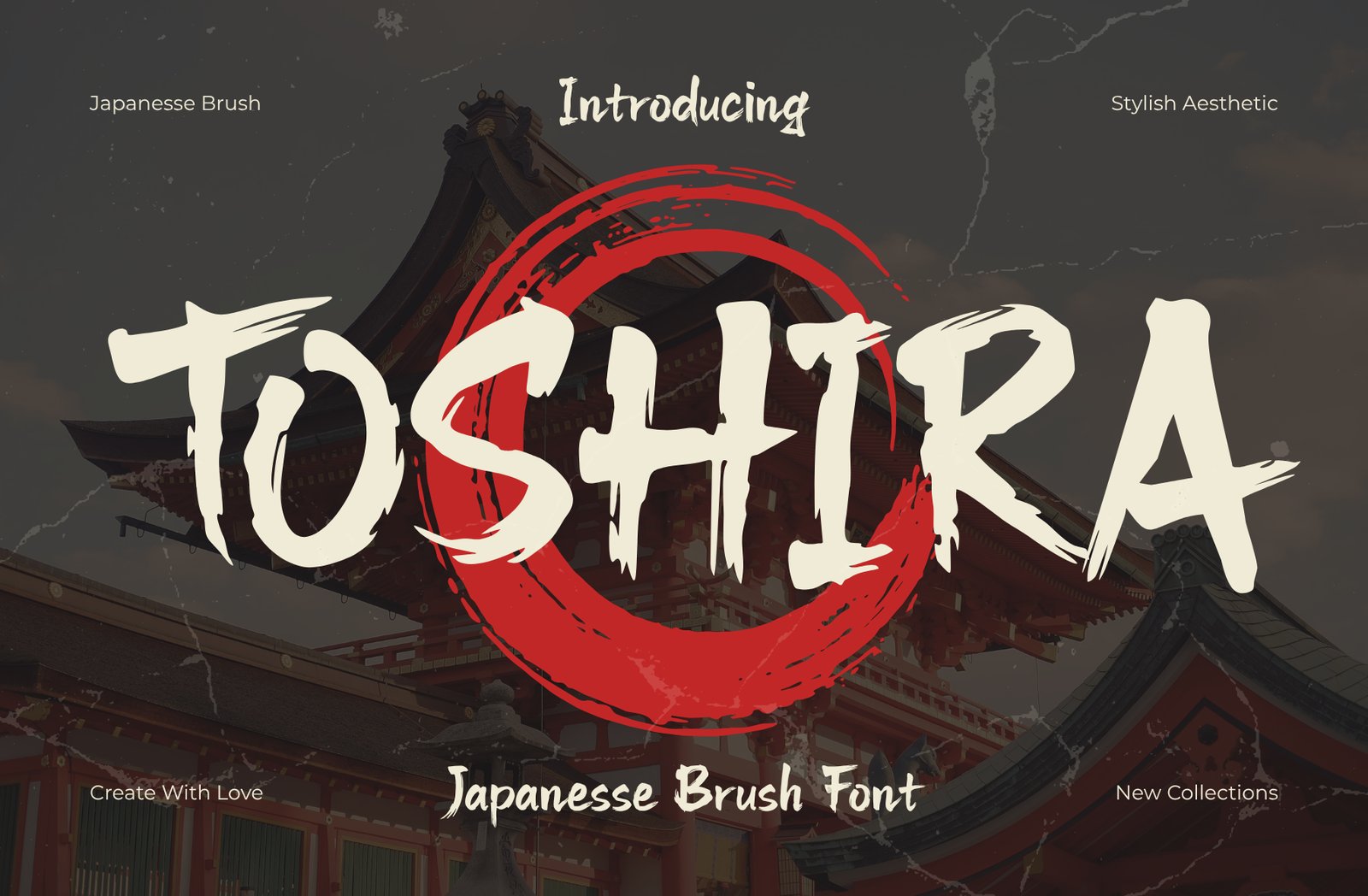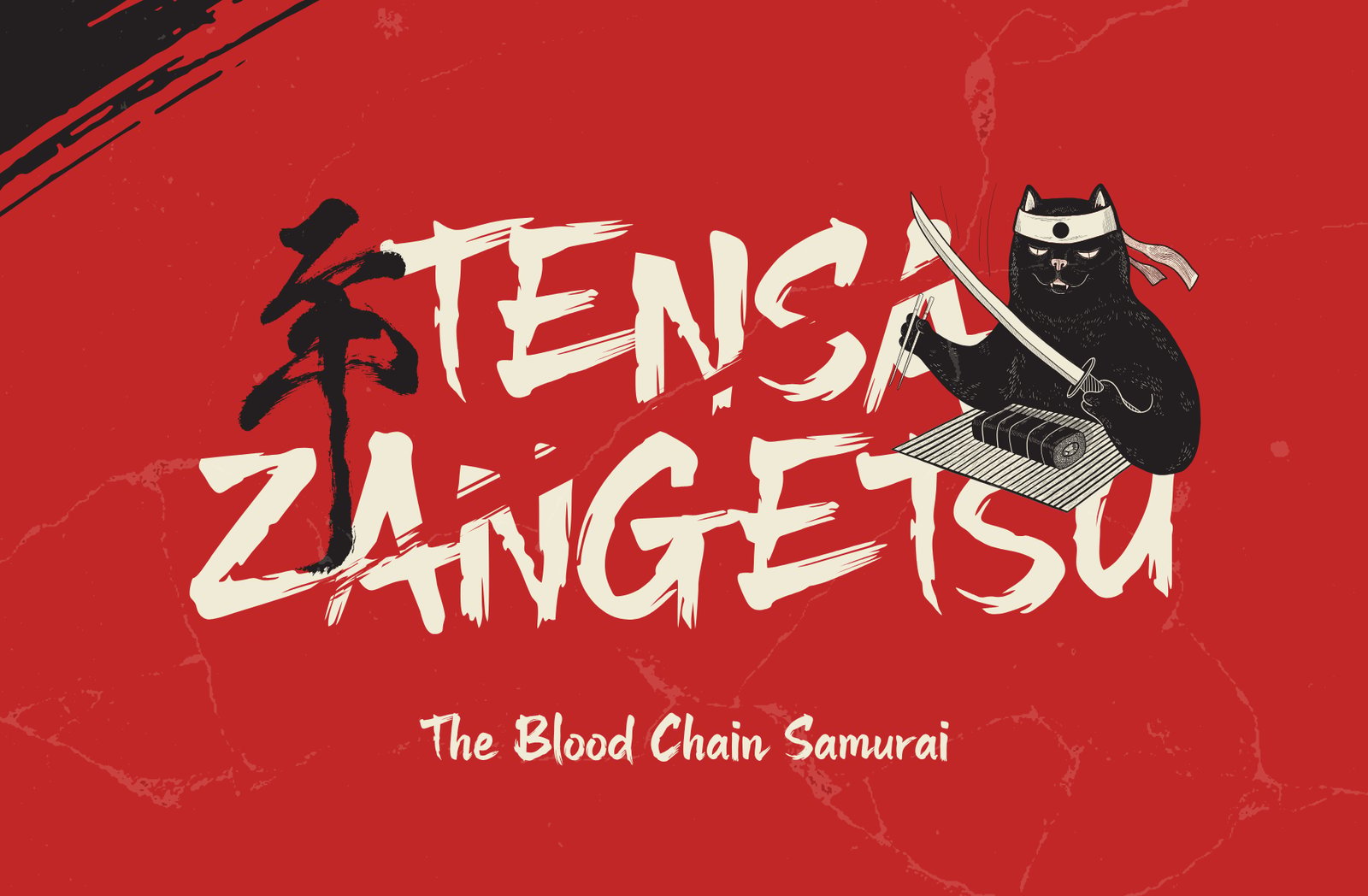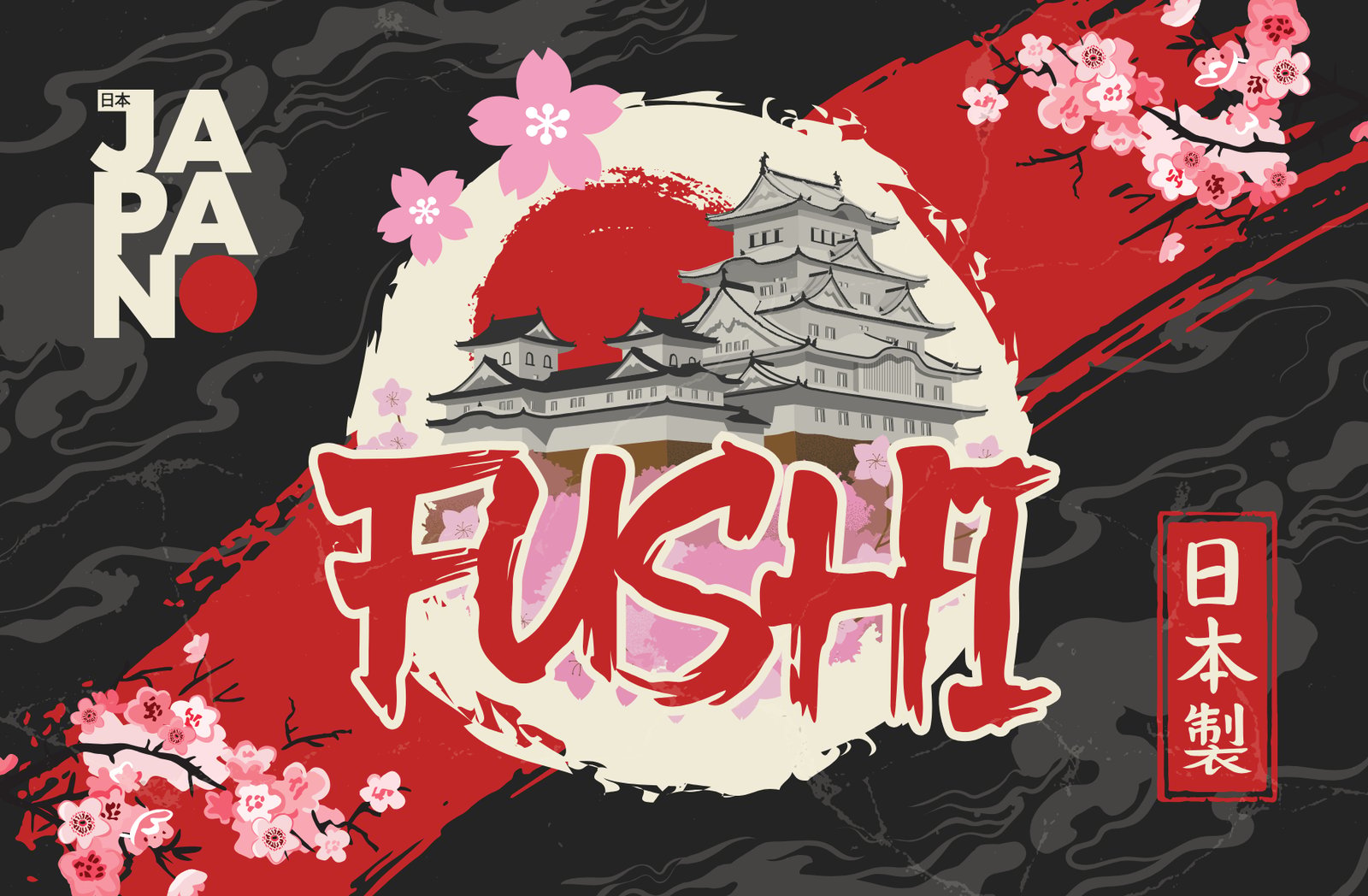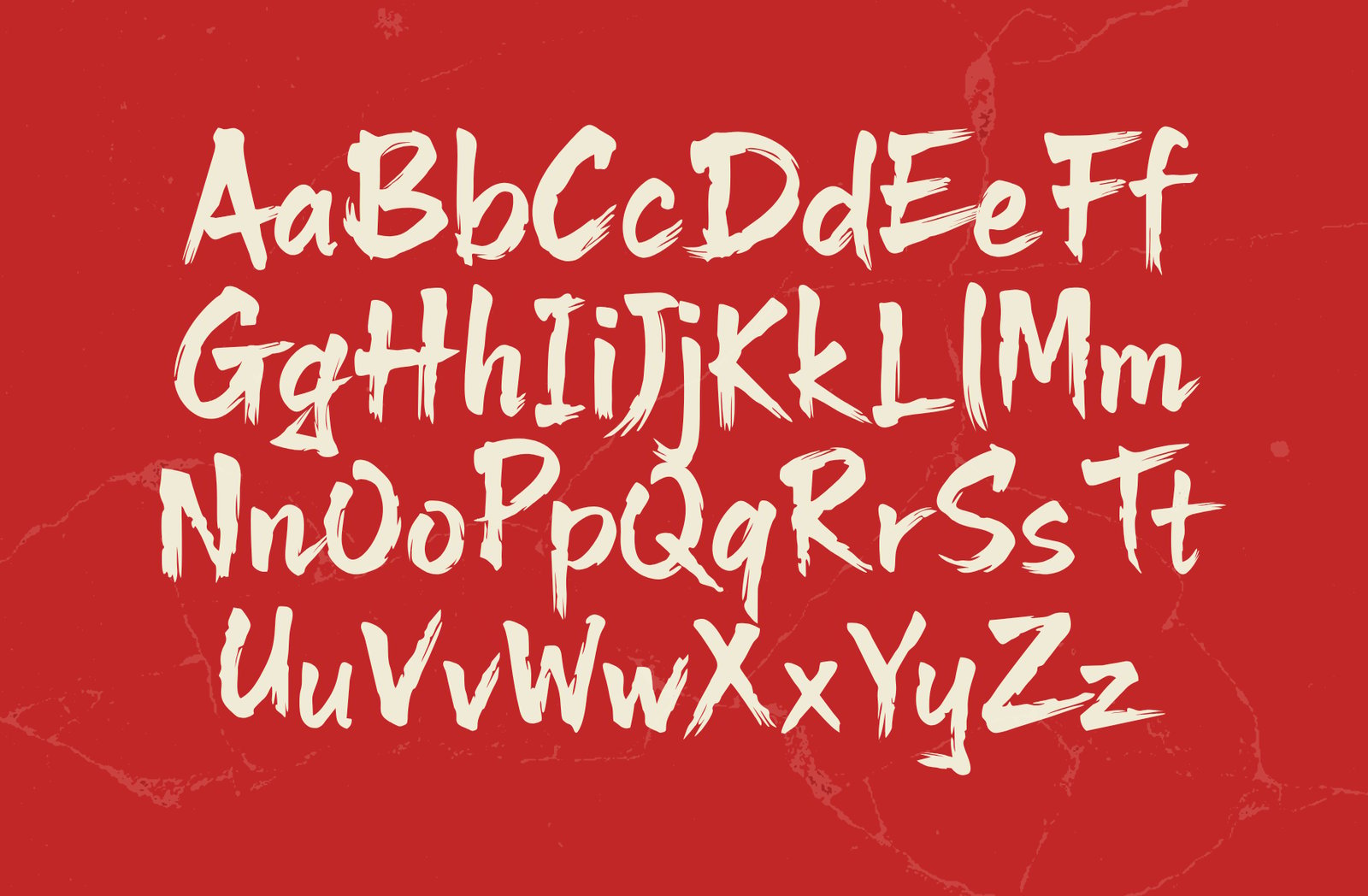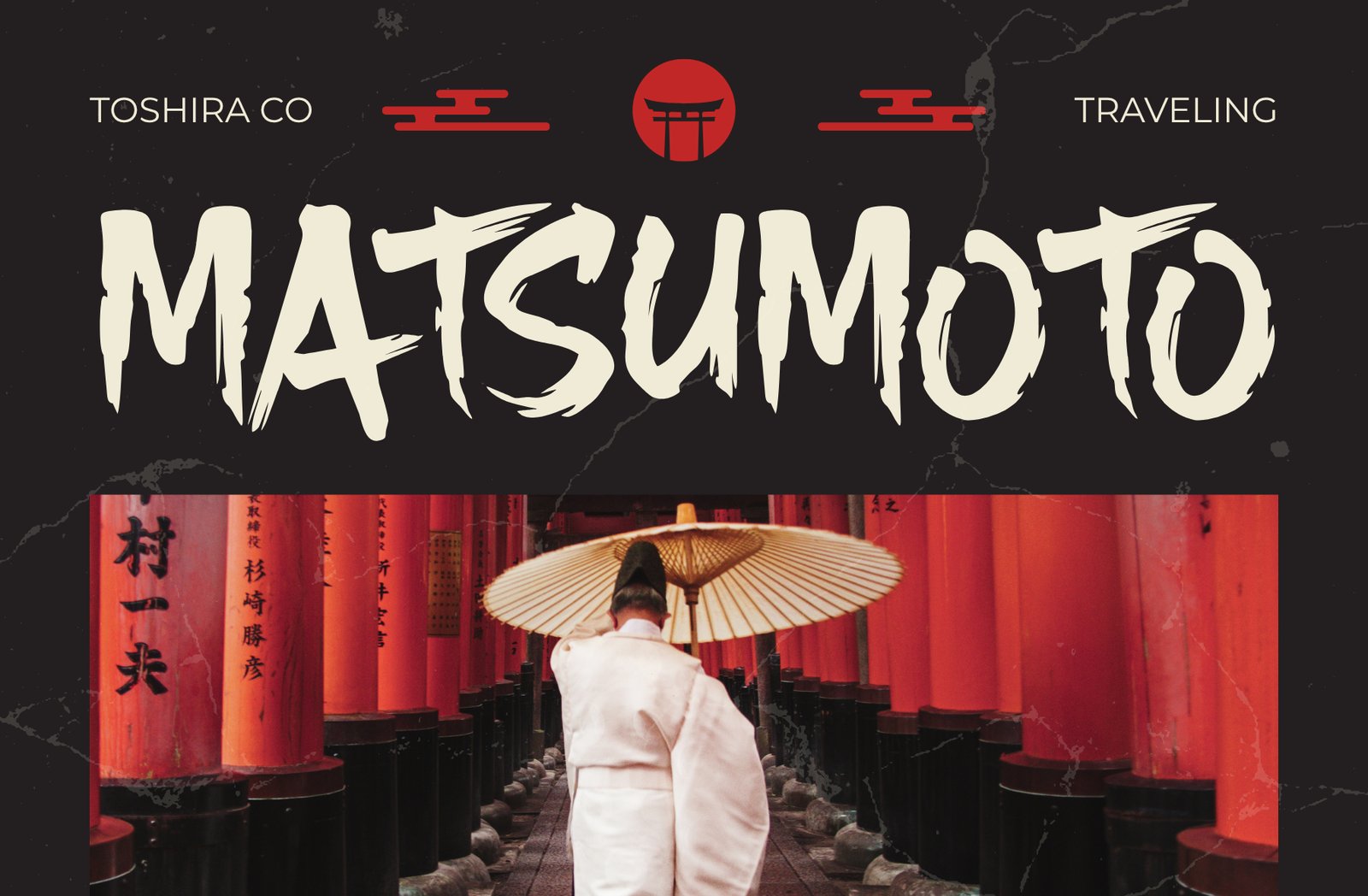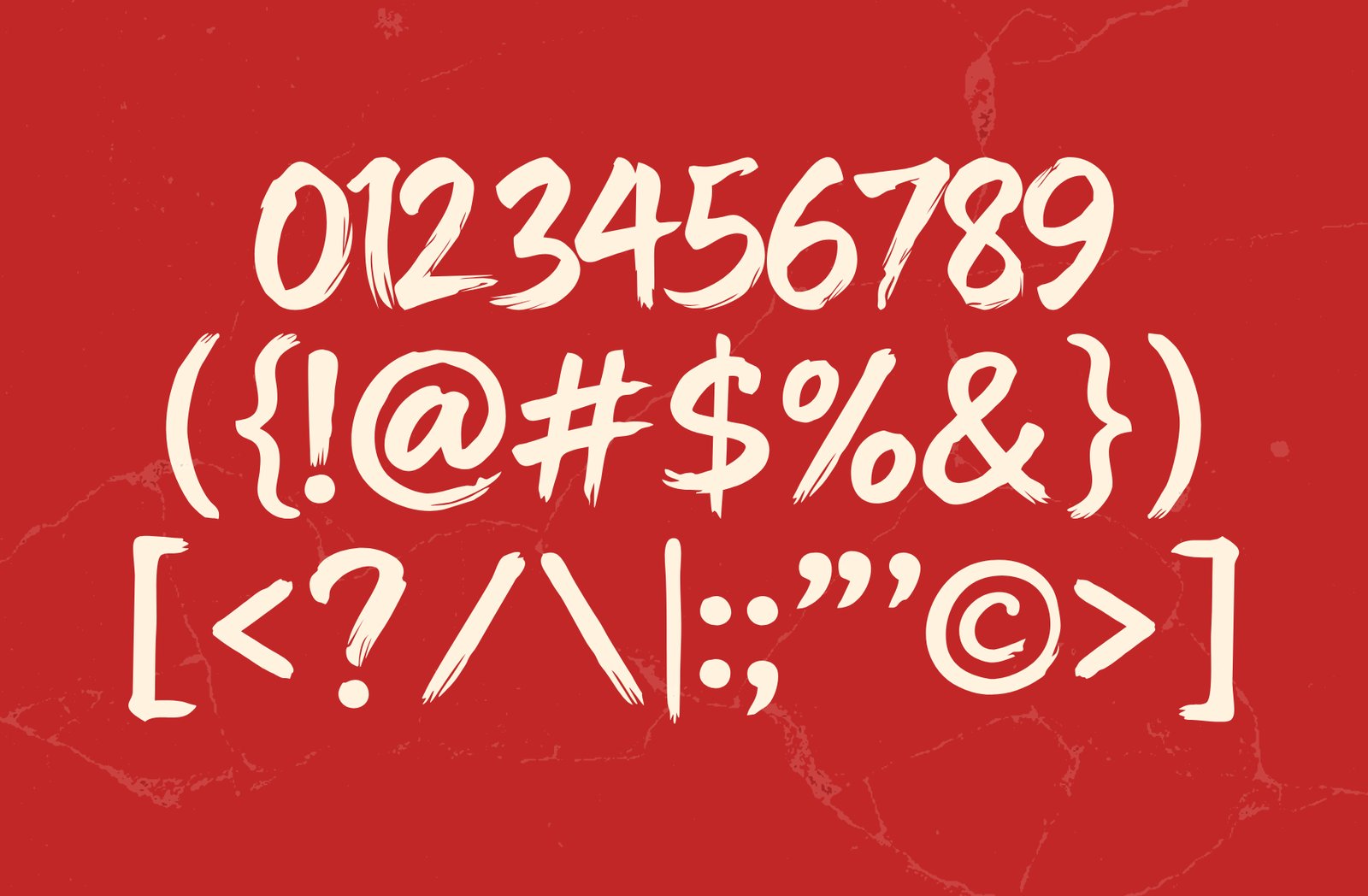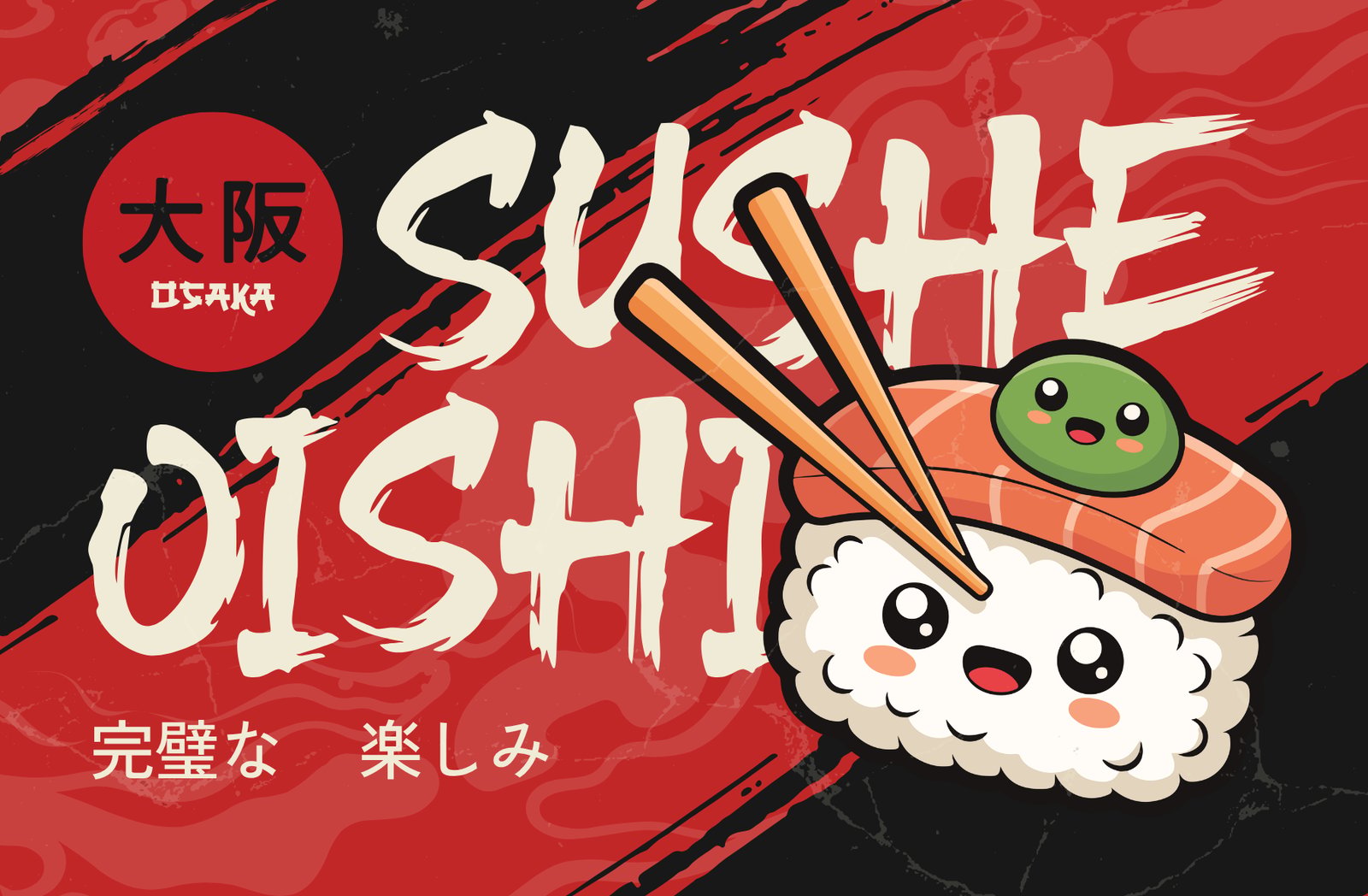
Toshira – Japanese Brush Display Font
Introducing Toshira – Japanese Brush Display Font
Toshira – Japanese Brush Display Font a bold and expressive typeface inspired by the powerful movement of traditional Japanese brush lettering and calligraphy. Toshira combines rough brush textures, dynamic strokes, strong shapes, and handcrafted details to create an authentic Japanese-inspired aesthetic. Its energetic and dramatic appearance makes it perfect for designs that need a strong visual impact, cultural character, and artistic personality.
• Uppercase & Lowercase
• Numbers & Punctuation
• Multilingual Support